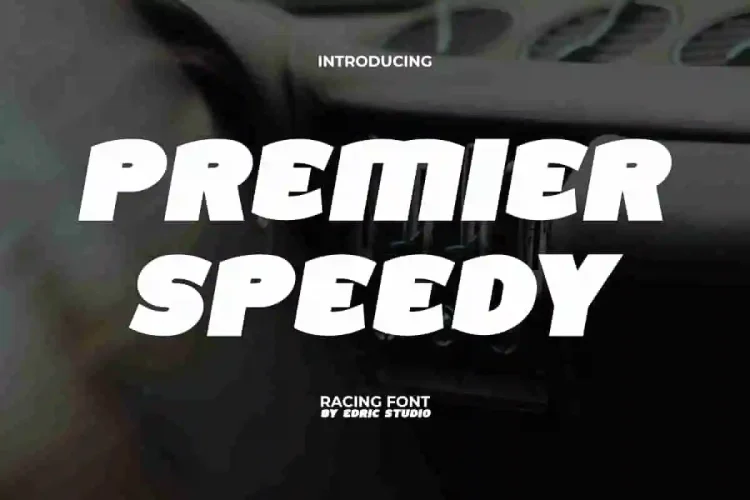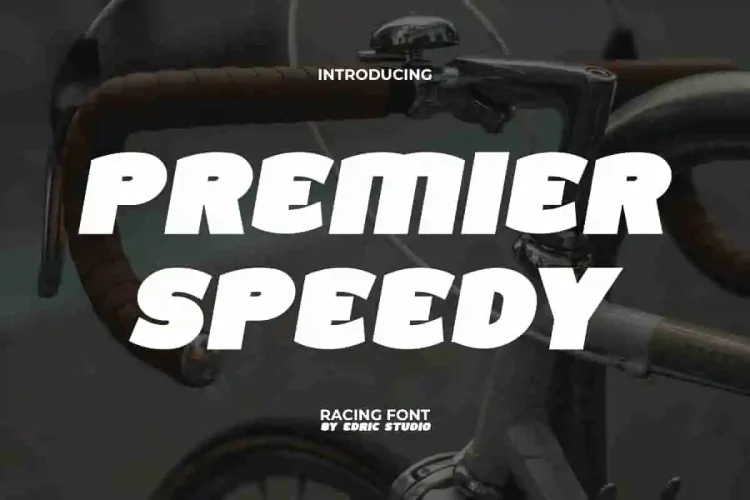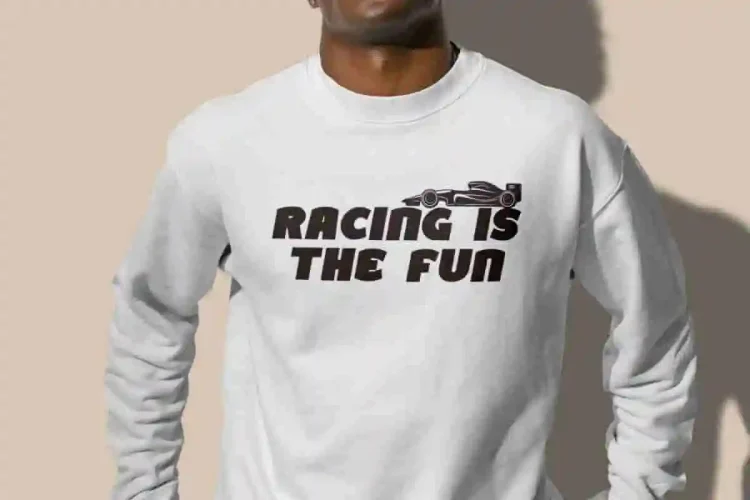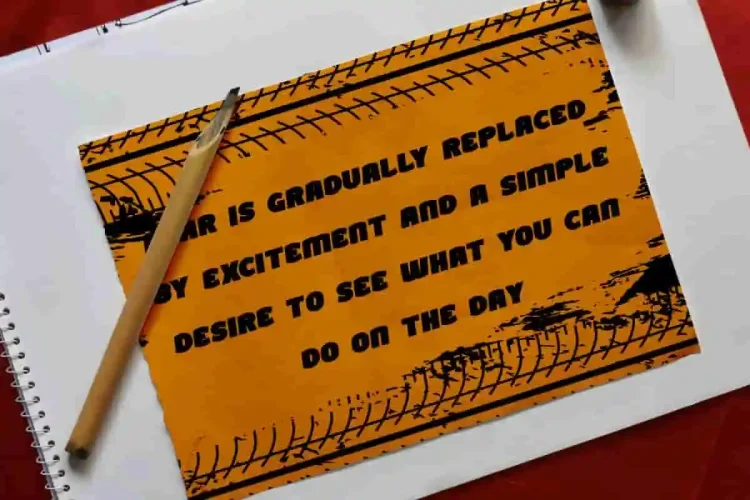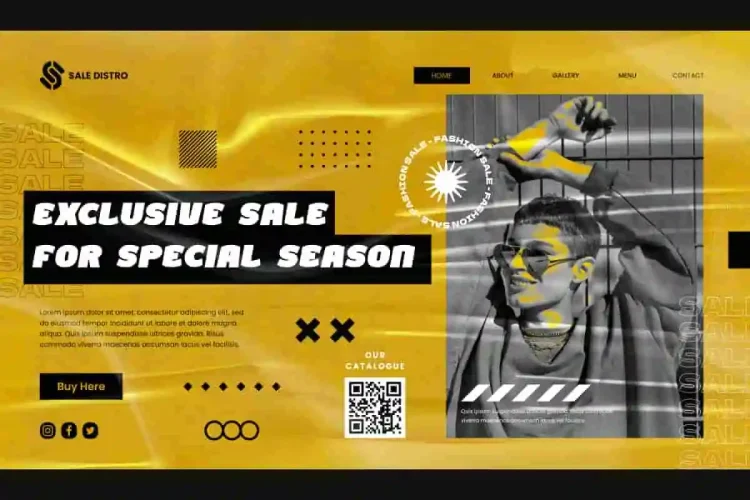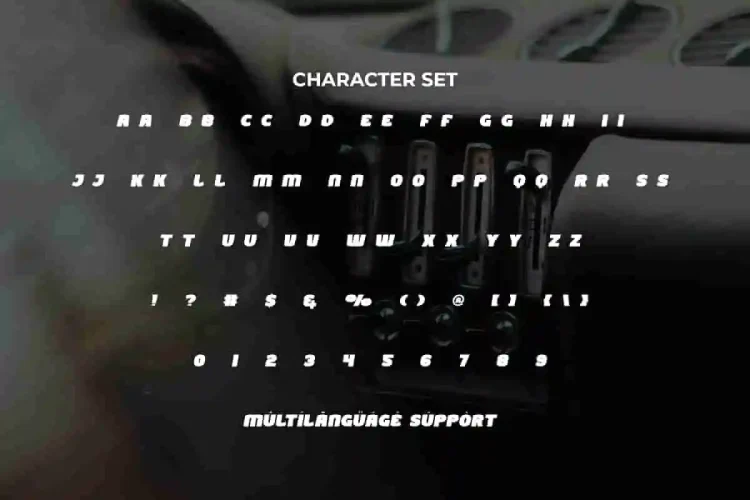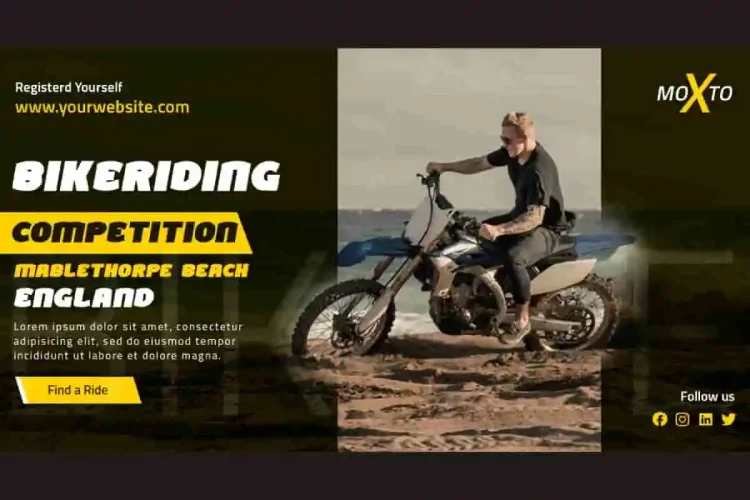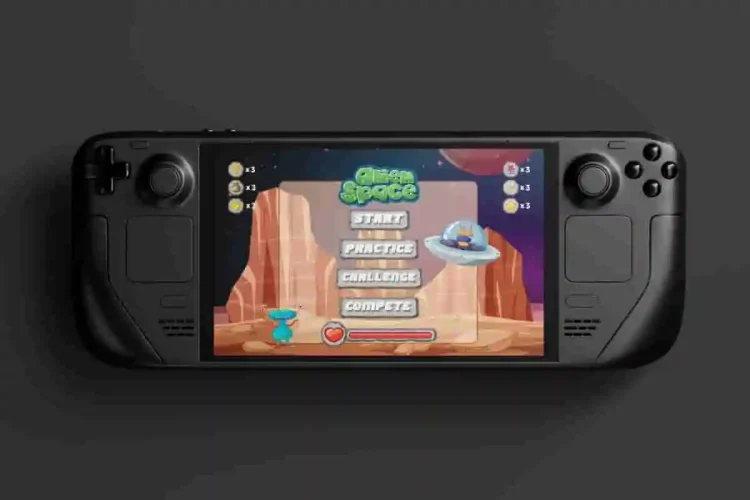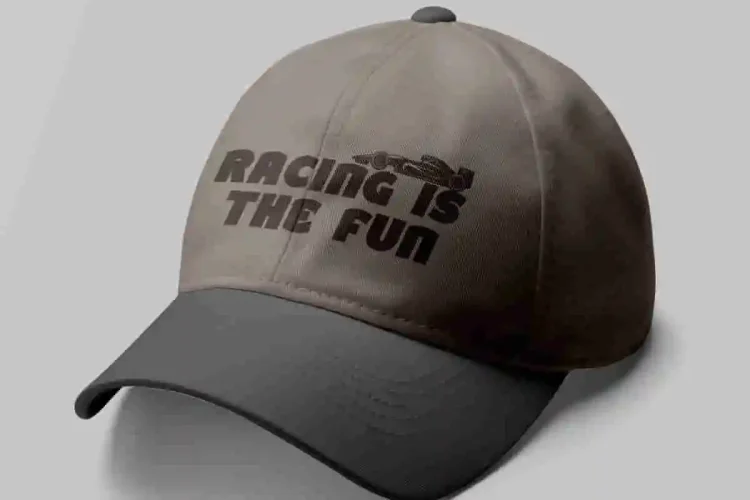
Premier Speedy Font is a fun fat sporty sans serif display font that looks great to give a modern and strong impression to your designs. It has an almost rounded shape with attractive sharp edges. This font is also suitable for application especially in apps, banners, billboard, blogs, brand logo, brochure, label, mockup, packaging, poster, printed materials, stationery, template, title, website, and more.
Premier Speedy Font includes a complete set of ALL CAPS for both Uppercase and Lowercase letters, Numbers, Punctuation, and Symbols. This font also shows a unique, attractive and powerful style with a very cool design that can be perfectly adapted and flexible across various platforms and media. Perfect for accessories and merchandise, clothing brand, fashion, games, graphic design, web design, etc.